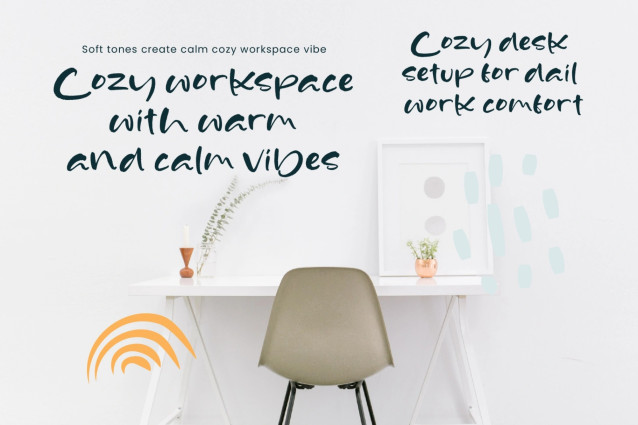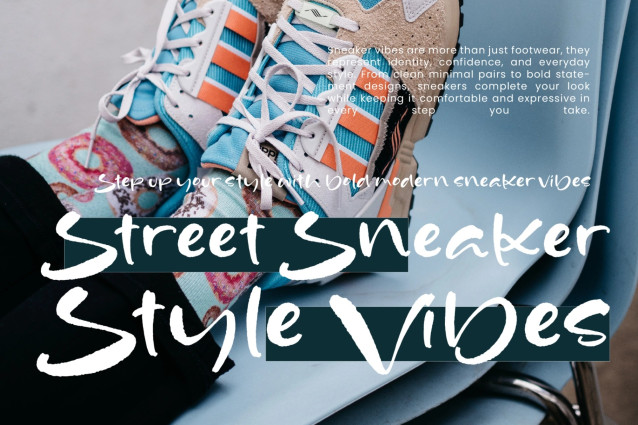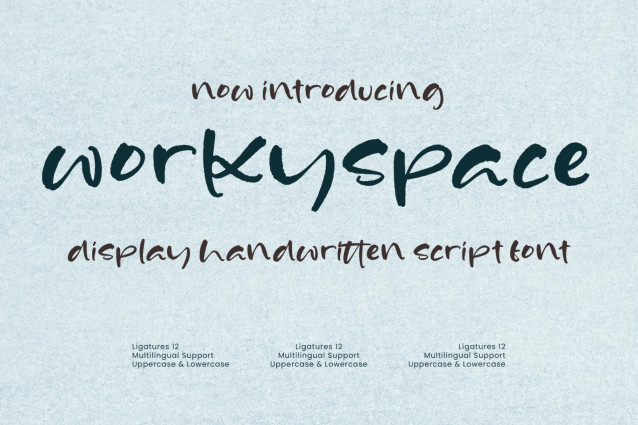
Worky Space Font
Worky Space Font is a playful display handwritten script font that combines casual handwriting with bold character and creative energy. Designed to capture the spontaneity of hand-drawn lettering, this font delivers a friendly, expressive, and approachable style that works beautifully across a wide variety of creative projects.
Featuring natural brush-inspired strokes and relaxed letterforms, Worky Space creates typography that feels authentic and effortlessly handcrafted. Its unique display style makes it perfect for headlines, branding, packaging, children’s products, social media graphics, and creative merchandise.
The font includes 12 carefully designed ligatures that help create smoother letter combinations and a more natural handwritten appearance. Combined with multilingual support and complete uppercase and lowercase character sets, Worky Space offers flexibility for both personal and commercial design projects.
Whether you’re creating eye-catching logos, fun branding concepts, educational materials, product packaging, or engaging social media content, Worky Space adds personality and charm that instantly connects with audiences.